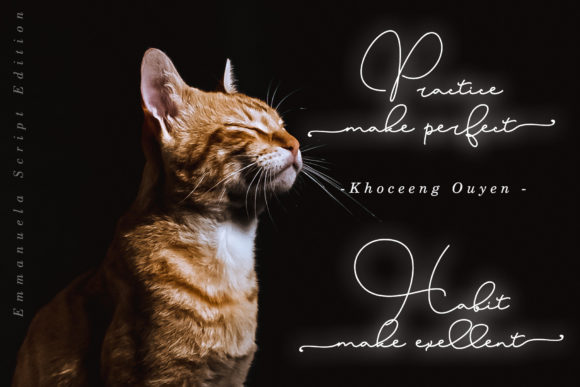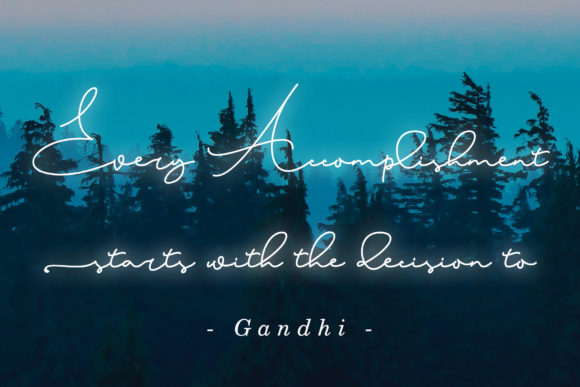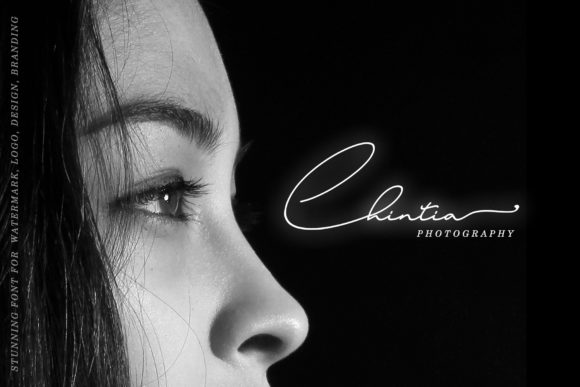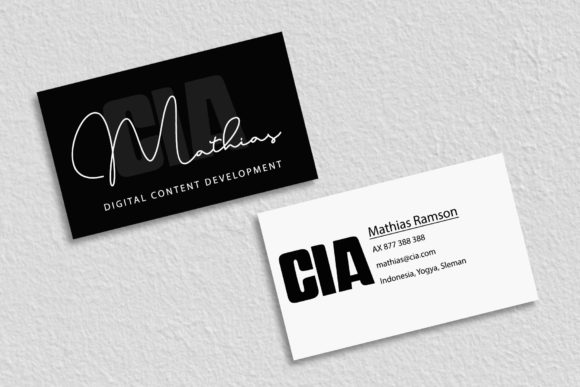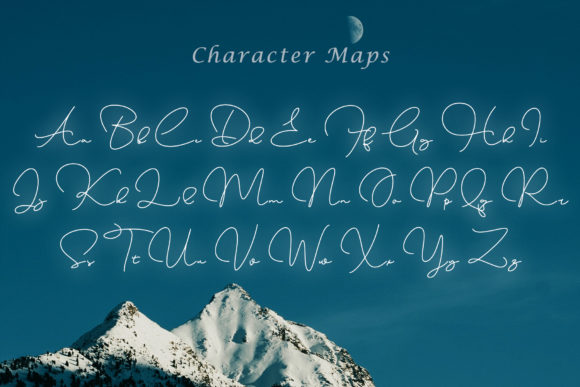
Introducing Emmanuela Font: A Timeless Handwritten Style for Your Design Projects
Are you a designer or crafter looking for a unique and gorgeous handwritten font to elevate your DIY projects? Look no further than Emmanuela Font! Inspired by classic typography, Emmanuela brings its own distinctive style to any design project, making it the perfect addition to your font collection.
The Charm of Classic Typography
Emmanuela Font is deeply rooted in traditional typography, with a keen eye for detail and a passion for the art of lettering. Its classic inspiration is evident in its elegant lines, flowing curves, and sophisticated charm. However, Emmanuela is not just a rehashing of old styles; it’s a modern take on timeless typography, infused with a unique personality that sets it apart from other fonts.
Bringing a Touch of Elegance to Your Designs
Emmanuela Font is the perfect choice for designers and crafters who want to add a touch of elegance and sophistication to their work. Whether you’re creating invitations, greeting cards, posters, or social media graphics, Emmanuela’s beautiful handwritten style will bring a level of refinement and poise to your designs. Its versatility makes it suitable for a wide range of projects, from formal events to casual, everyday applications.
What Makes Emmanuela Font So Special?
So, what sets Emmanuela Font apart from other handwritten fonts? Here are just a few features that make it truly special:
- Unique Character Set: Emmanuela Font boasts an extensive character set, including uppercase and lowercase letters, numbers, punctuation marks, and special characters. This ensures that you have everything you need to create beautiful, cohesive designs.
- Hand-Drawn with Love: Emmanuela Font is carefully hand-drawn with attention to detail, giving it a personal and organic feel that’s hard to replicate with digital fonts.
- Highly Legible: Despite its elegant and cursive nature, Emmanuela Font is highly legible, making it suitable for both headings and body text.
How to Use Emmanuela Font in Your DIY Projects
Emmanuela Font is incredibly easy to use, even if you’re not a professional designer. Here are some ideas to get you started:
- DIY Invitations: Create beautiful, one-of-a-kind invitations for weddings, birthday parties, and other special occasions.
- Handmade Cards: Add a personal touch to your greeting cards with Emmanuela Font’s elegant handwritten style.
- Custom Posters: Design eye-catching posters for events, promotions, or simply to decorate your home.
- Social Media Graphics: Elevate your social media presence with stunning graphics featuring Emmanuela Font.
Emmanuela Font is a gorgeous and unique handwritten font that’s sure to bring a touch of classic elegance to your design projects. With its inspiration from traditional typography and its own distinctive style, Emmanuela is the perfect choice for designers and crafters looking to add a level of sophistication to their work. So why wait? Download Emmanuela Font today and start bringing your DIY projects to life!
- Emmanuela Font is a unique and gorgeous handwritten font inspired by classic typography.
- It’s perfect for designers and crafters looking to add elegance and sophistication to their work.
- Emmanuela Font features a extensive character set, hand-drawn with love, and is highly legible.
- It’s suitable for a wide range of projects, from formal events to casual applications.